DSType
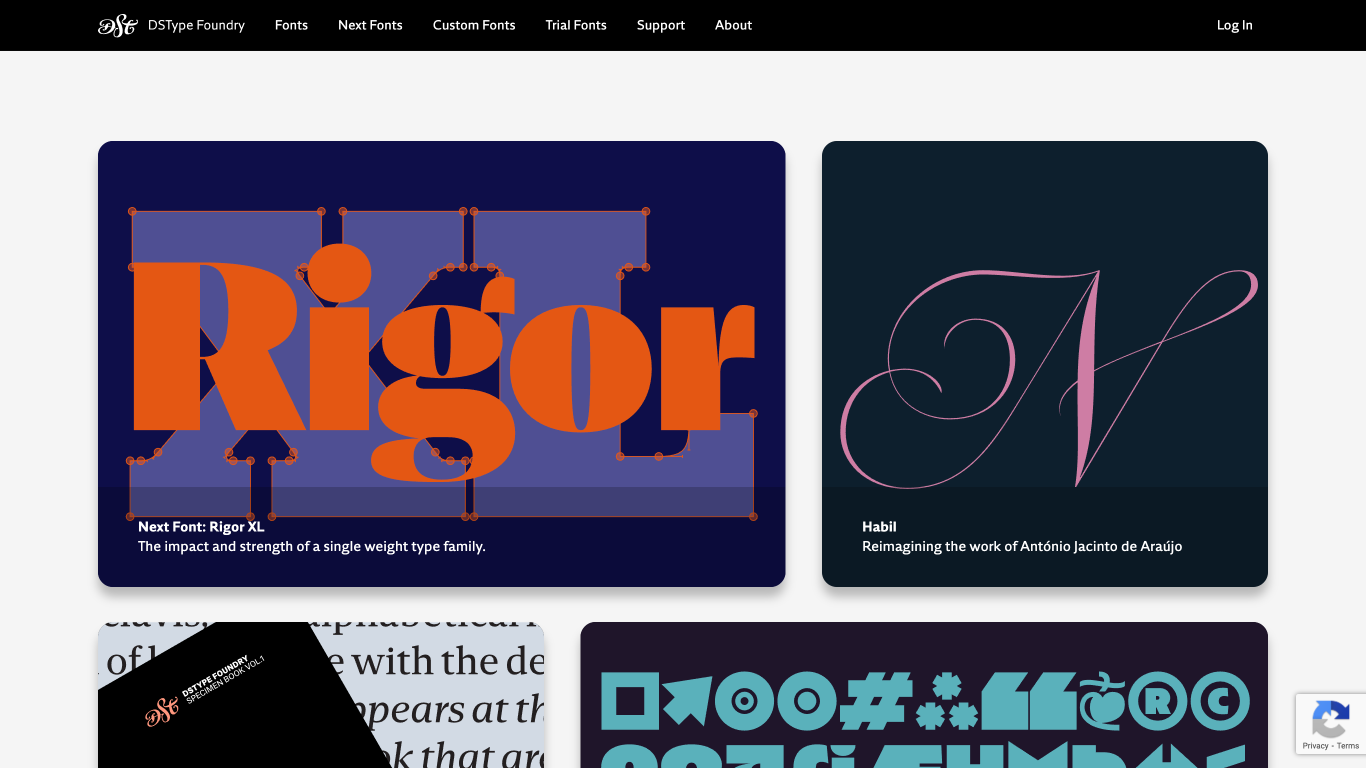
Portugal
1994
DSType is an independent type foundry based in Portugal, founded in 1994 by type designer Dino dos Santos. The foundry specializes in creating high-quality typefaces for various applications, including retail and bespoke fonts. Notable typefaces from DSType include 'Acta,' 'Prelo,' and 'Ventura,' each reflecting a blend of historical awareness and modern design sensibilities.